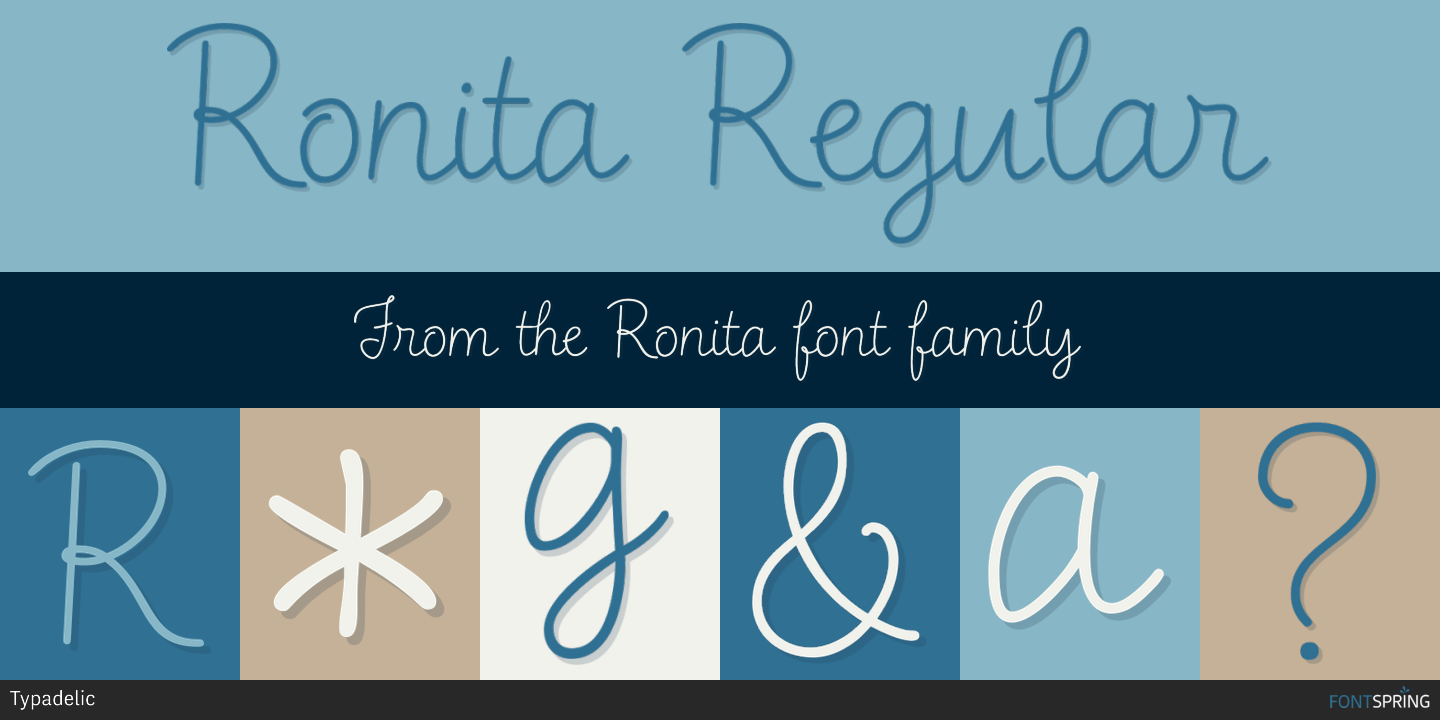
Ronita
Ronita is a hand drawn font published by Typadelic.
Even as a child, I was interested in letterforms. I admired my grade 4 teacher’s handwriting and so Ronita is based on fuzzy memories of her elegant script.